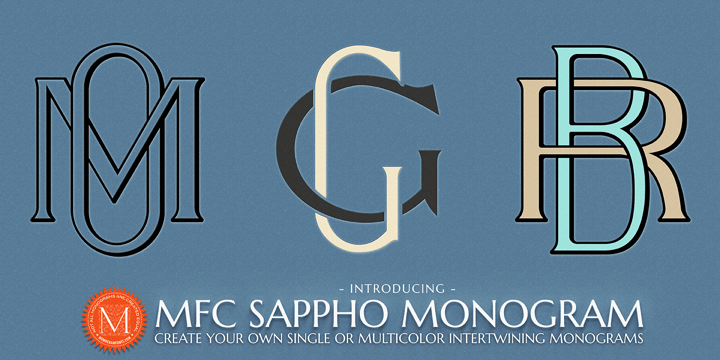
MFC Sappho Monogram™
La famille de polices MFC Sappho Monogram a été conçue par Brian J. Bonislawsky et publiée par Monogram Fonts Co.. MFC Sappho Monogram contient 29 styles et options de package familial.
The inspiration source for Sappho Monogram is an alphabet set from the book Monograms and Alphabets for Combination by Dollfus Mieg & Cie, first published in the 1890s. What began as 26 referenced outline/shadowed letters became an over 800 character font in order to create its unique interwoven monogram effect! Expanding on the theme even more, MFC Sappho Monogram also includes a series of Chromatic Layering fonts to create even more customization options. Sappho Monogram can create one, two, or three letter monograms as well as a unique two letter intertwined monogram style - made by simply typing a lowercase immediately followed by a Capital (using OpenType Ligatures). Classic roman letterforms combine to make elegant monograms like designer branding, and you can also choose to type in all capitals or all lowercase for simple title and headlines as well. (Note that due to the manner in which combination monograms are formed, some letters like the “I” will change to script-like forms to avoid being hidden in overlaps). MFC Sappho Monogram is the original Outline/Shadowed style. MFC Sappho Monogram Solid is a version with the original outline filled in. MFC Sappho Monogram One is the Capital letterforms only in both standard and ligature glyphs. MFC Sappho Monogram Two is the Lowercase letterforms only in both standard and ligature glyphs. MFC Sappho Monogram Stencil contains the inner fill of the original Outline/Shadowed style, and while the standard Capitals & Lowercase do not appear as stencil in style, the ligatures are. Download and view the Sappho Monogram Guidebook if you would like to learn a little more.